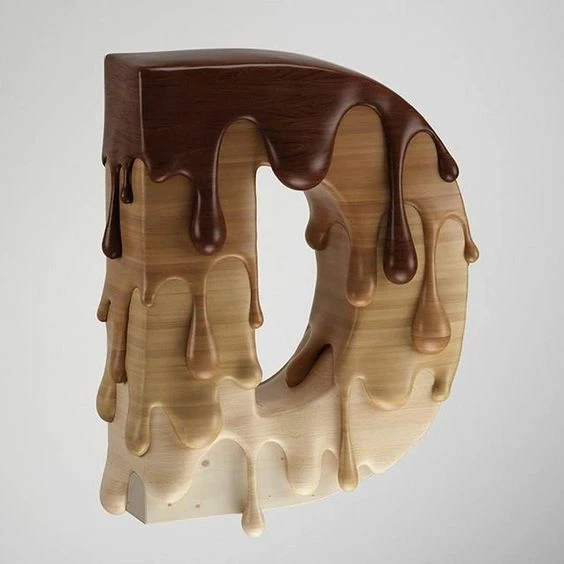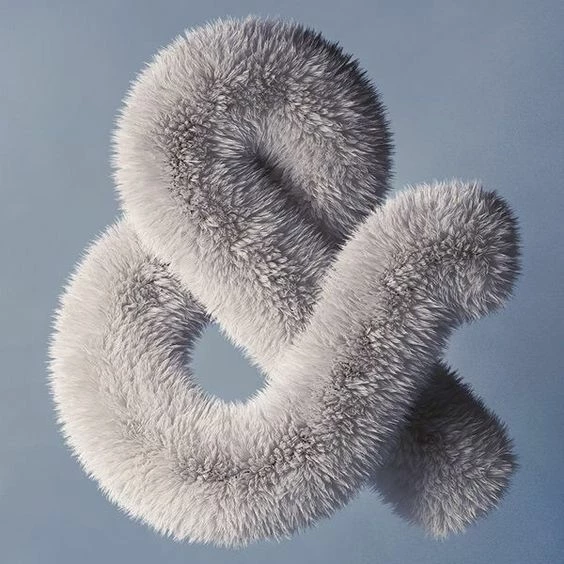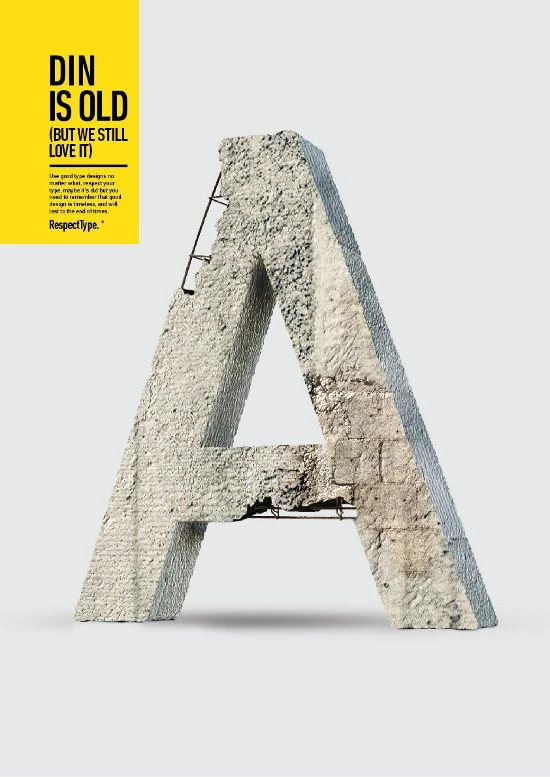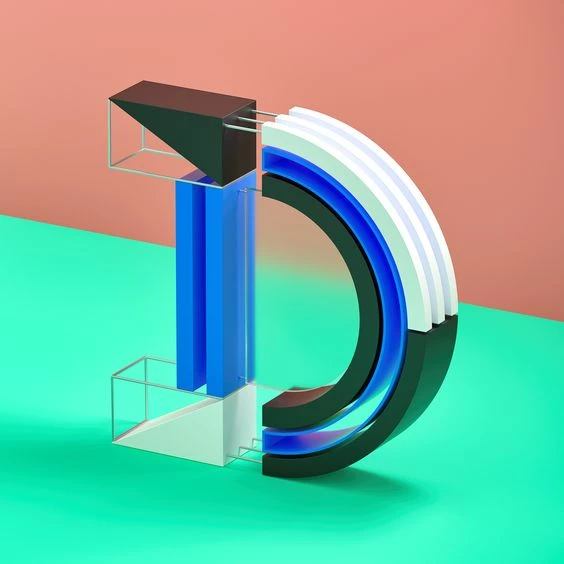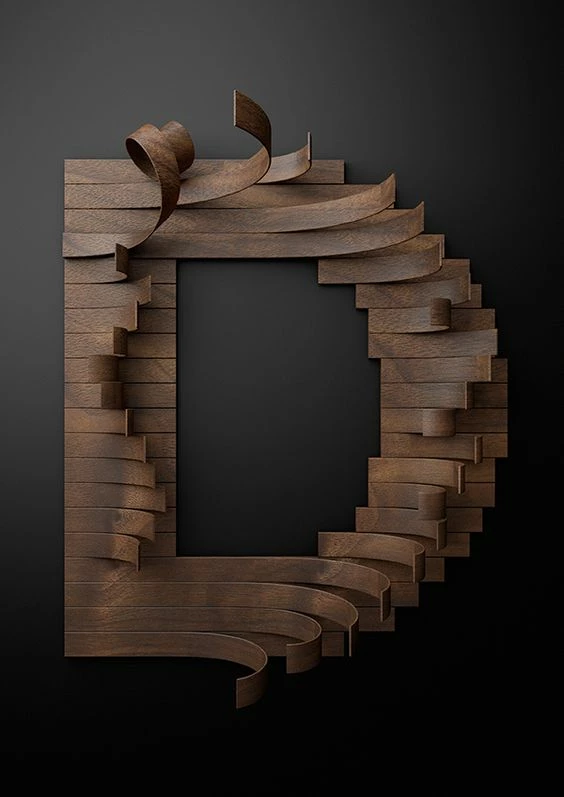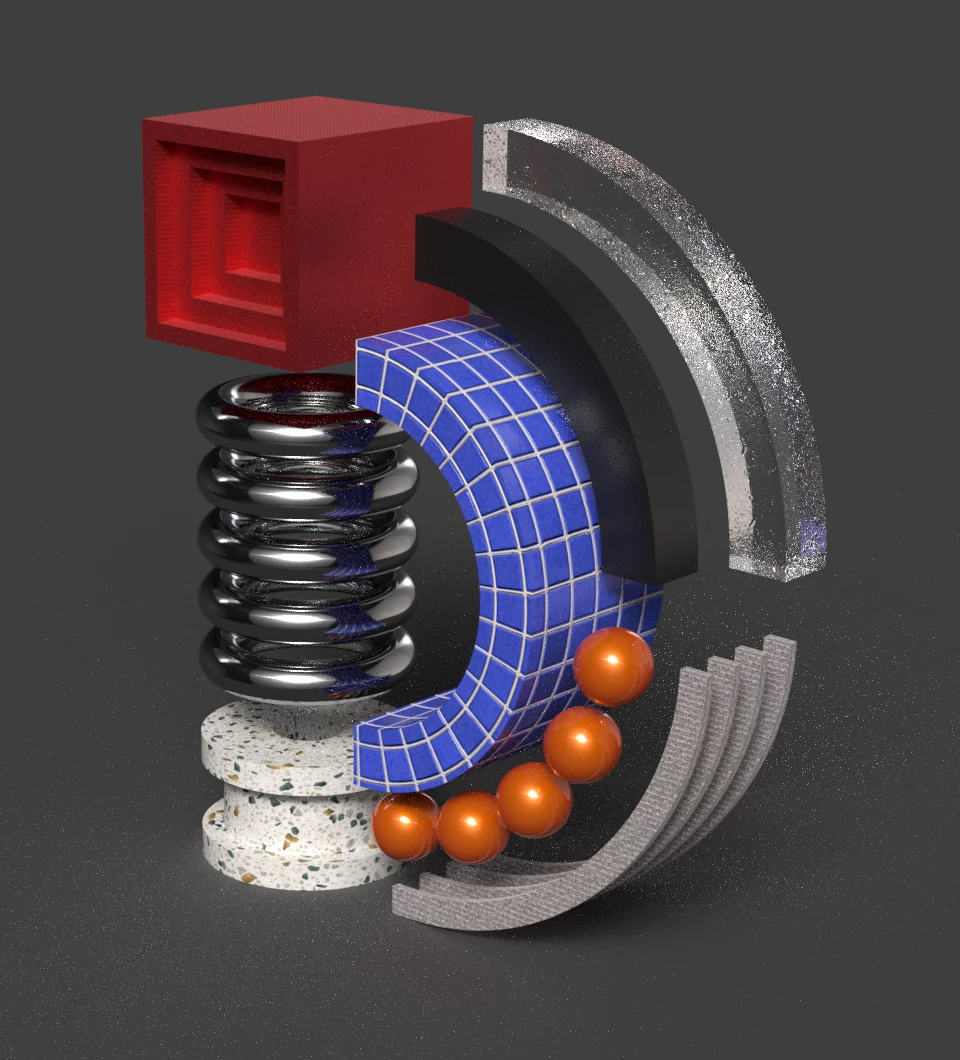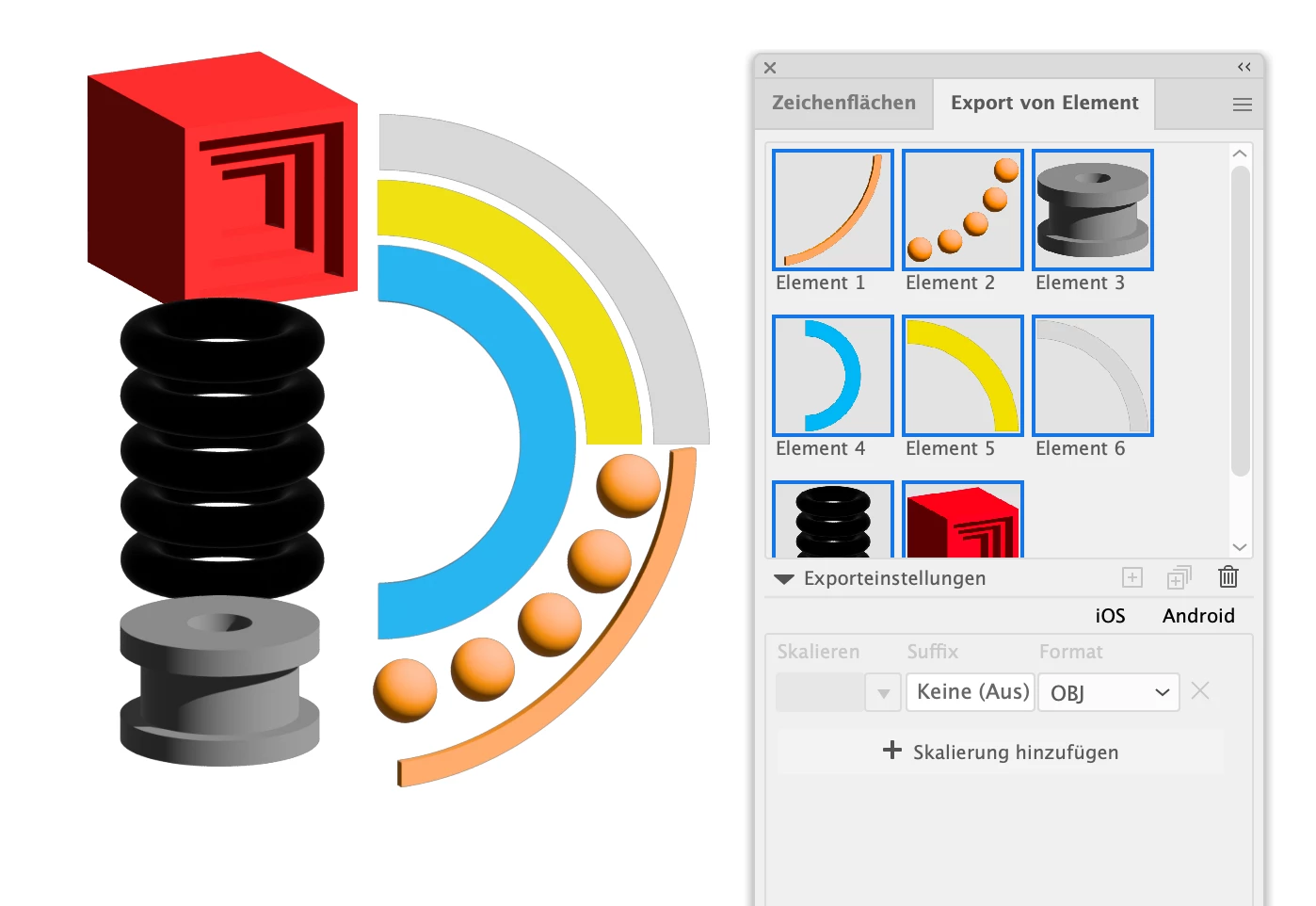
typographie 3D
Je ne sais pas si vous pouvez m'aider mais j'aimerai réaliser ce type de typographie.
Mais comment faire voici un lien sur pinterest pour quelque exemples :
Maybe you can build the drippy paint in Illustrator with the 3D Inflate (I have not yet tried). Assembling it in Dimension/Stager could get really hard to get a smooth surface, but could be worth trying.
All of this will most probably be easier in a real 3D application (such as Blender) for an experienced user that is. I have not yet experiemted with fur in Dimension/Stager, so don't know if there were a chance to get that example.
For this one you could create the building blocks in Illustrator and then assemble them in Adobe Dimension or Substance Stager if you have subscribed to it as well.
This is something I did in Illustrator and Stager
The same goes for the wooden one. The part where the wood goes in spirals could be built in Illustrator combined with Dimension/Stager, but that would be a lot of diffling around.
Ok of this could be built in Illustrator.
If you could live with the fact that it's just extruded and therefore the breaks are not really irregular and if you can find or make such a material, then you could fake the metal wires into it suing masking and build this in Illustrator alone.